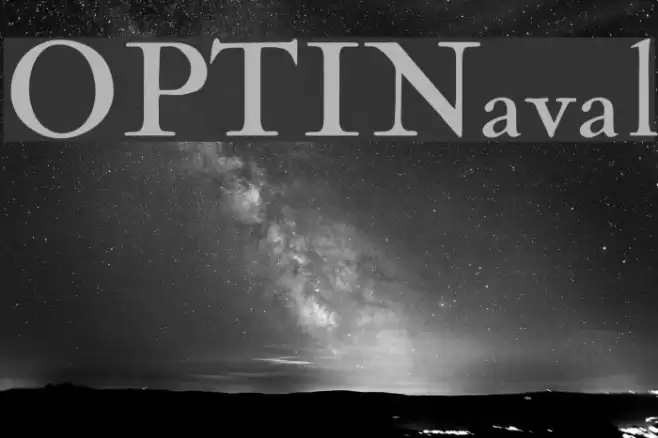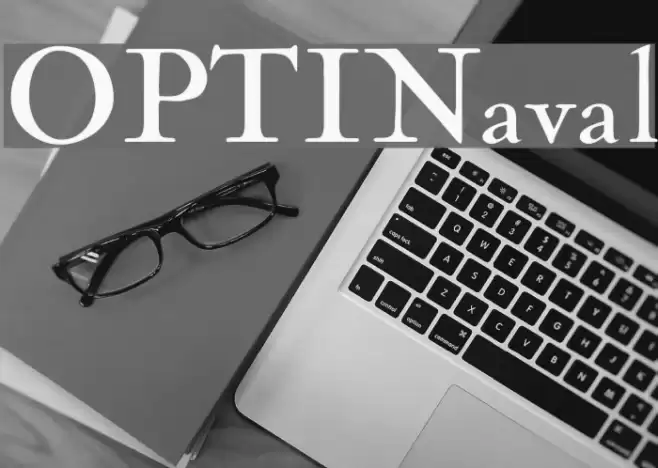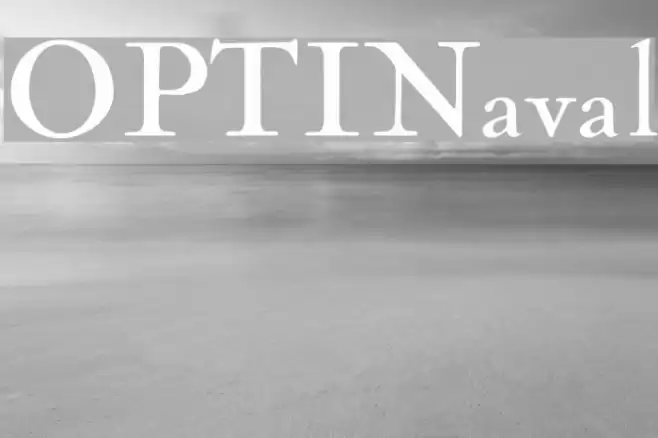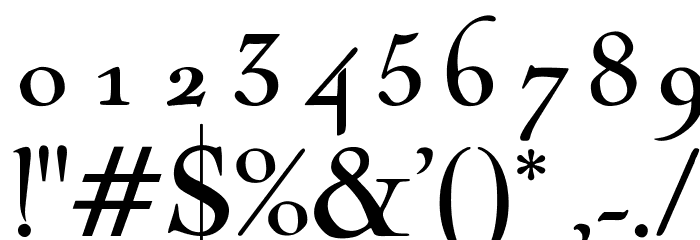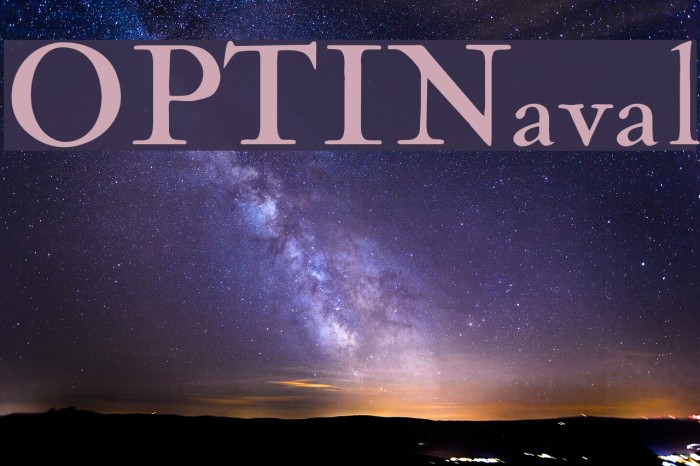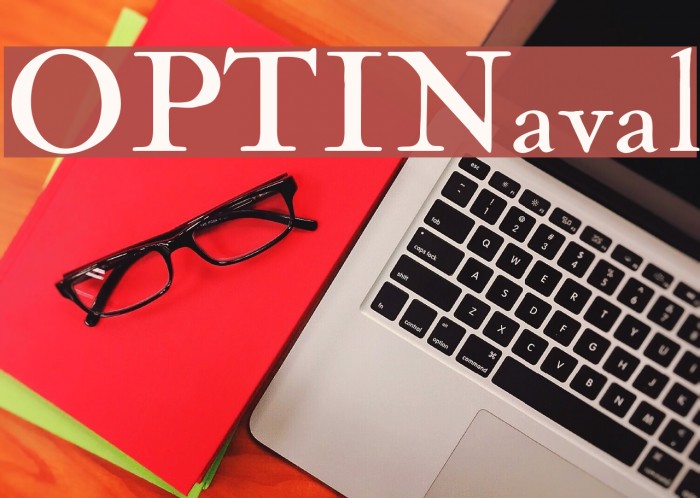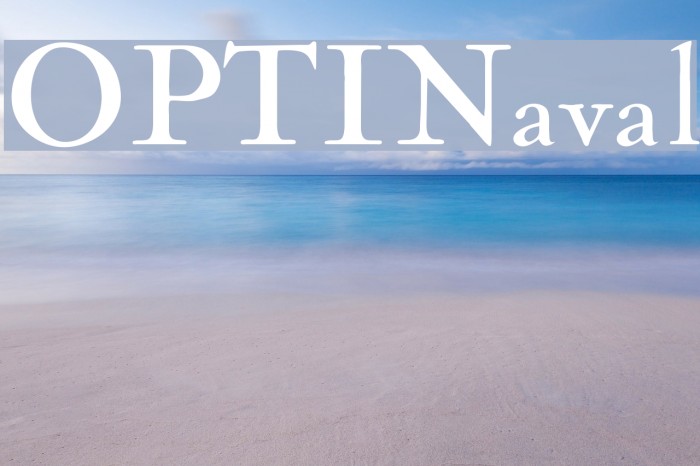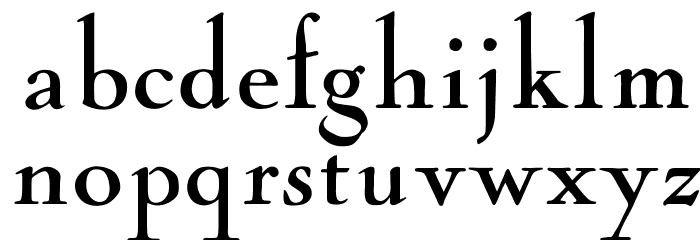
OPTINaval Font
OPTINaval Description
This font exudes a classic elegance with its distinct serif style, characterized by sharp, triangular serifs and a refined contrast between thick and thin strokes. The uppercase letters are stately and well-proportioned, while the lowercase letters maintain a graceful flow, making it suitable for both formal and traditional contexts. The numerals are clear and balanced, ensuring readability. Special characters are crafted with the same attention to detail, adding to the font's versatility. Overall, this font combines sophistication with readability, making it ideal for a variety of design applications.
A classic serif font with elegant contrast and sharp serifs from Uncategorized fonts.
- Proposed Projects: Ideal for book covers, formal invitations, editorial layouts, and branding projects that require a touch of sophistication.
- Overall Style: Classic